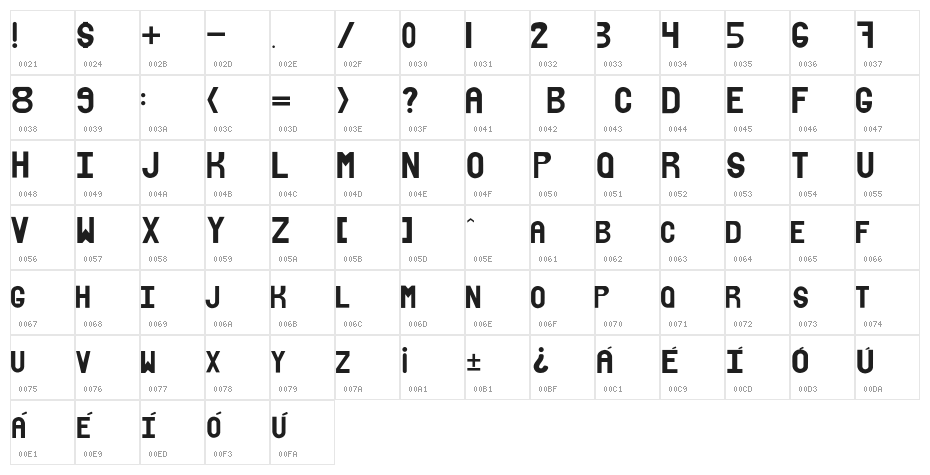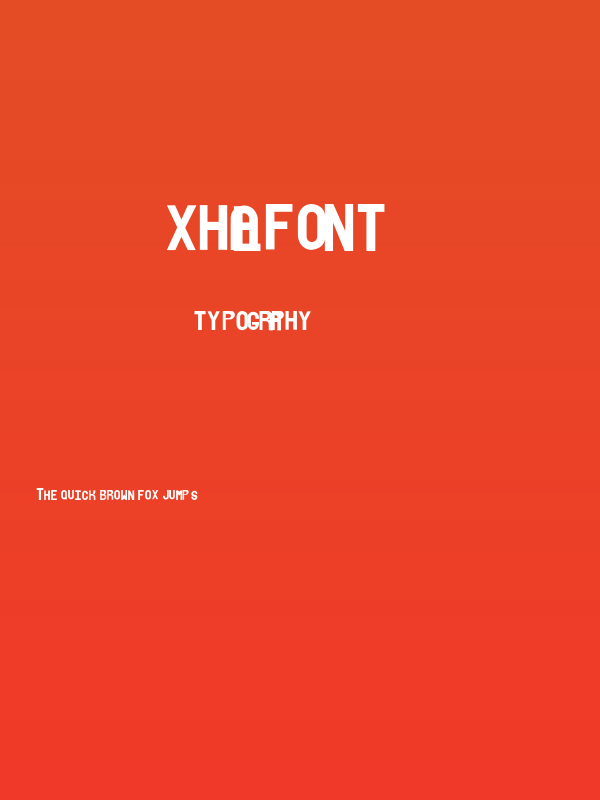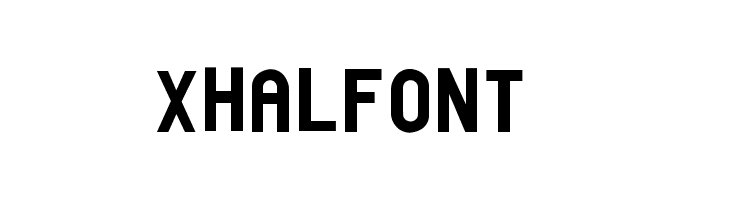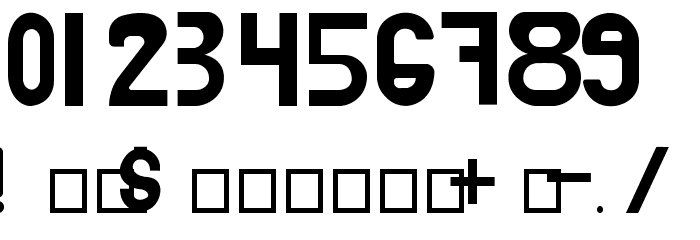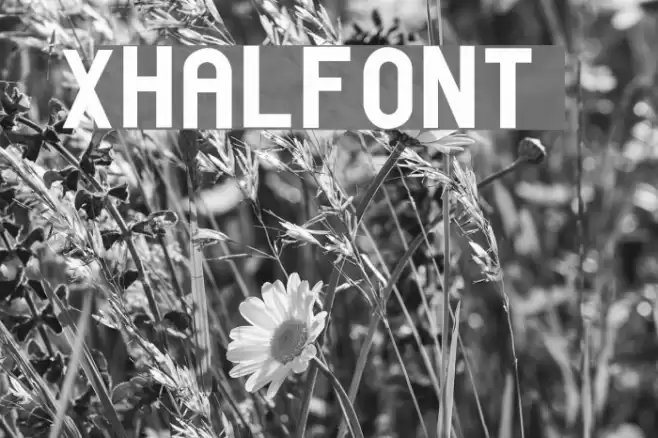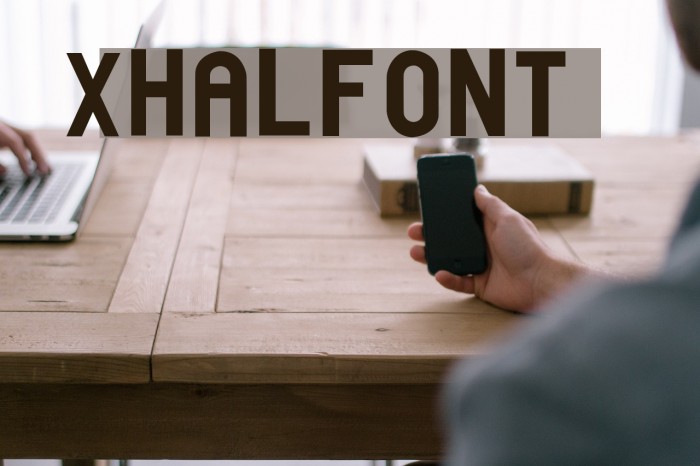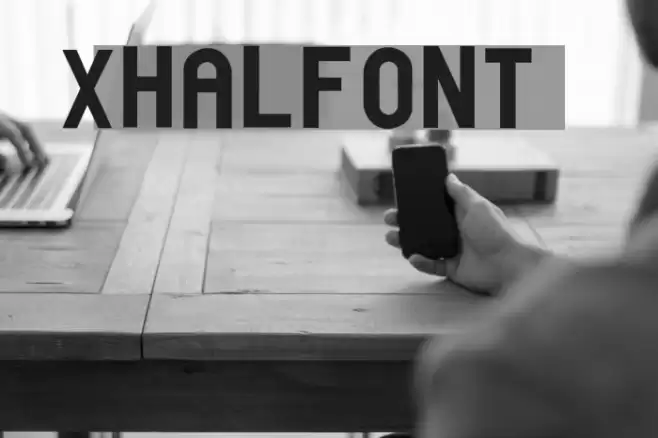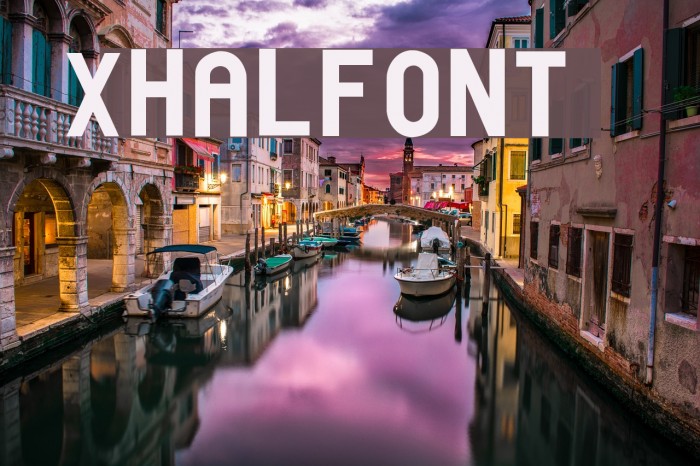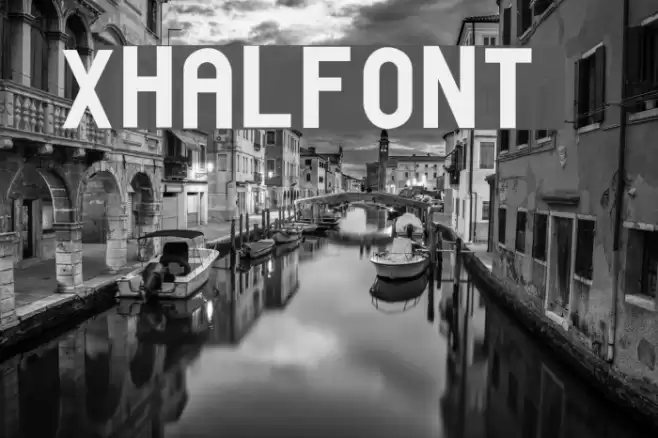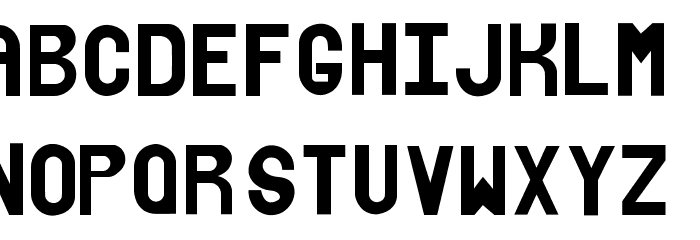
xhalfont Font
xhalfont Description
This font features a bold and geometric design, characterized by its strong, blocky letterforms. The uppercase and lowercase letters maintain a consistent width, creating a uniform appearance. The numerals are equally bold, with a modern and slightly industrial feel. The special characters are designed to match the overall aesthetic, ensuring cohesion across all elements. The font's clean lines and lack of serifs contribute to its contemporary style, making it suitable for a variety of design applications.
| Proposed Projects | Ideal for branding, posters, headlines, and any project requiring a strong visual impact. |